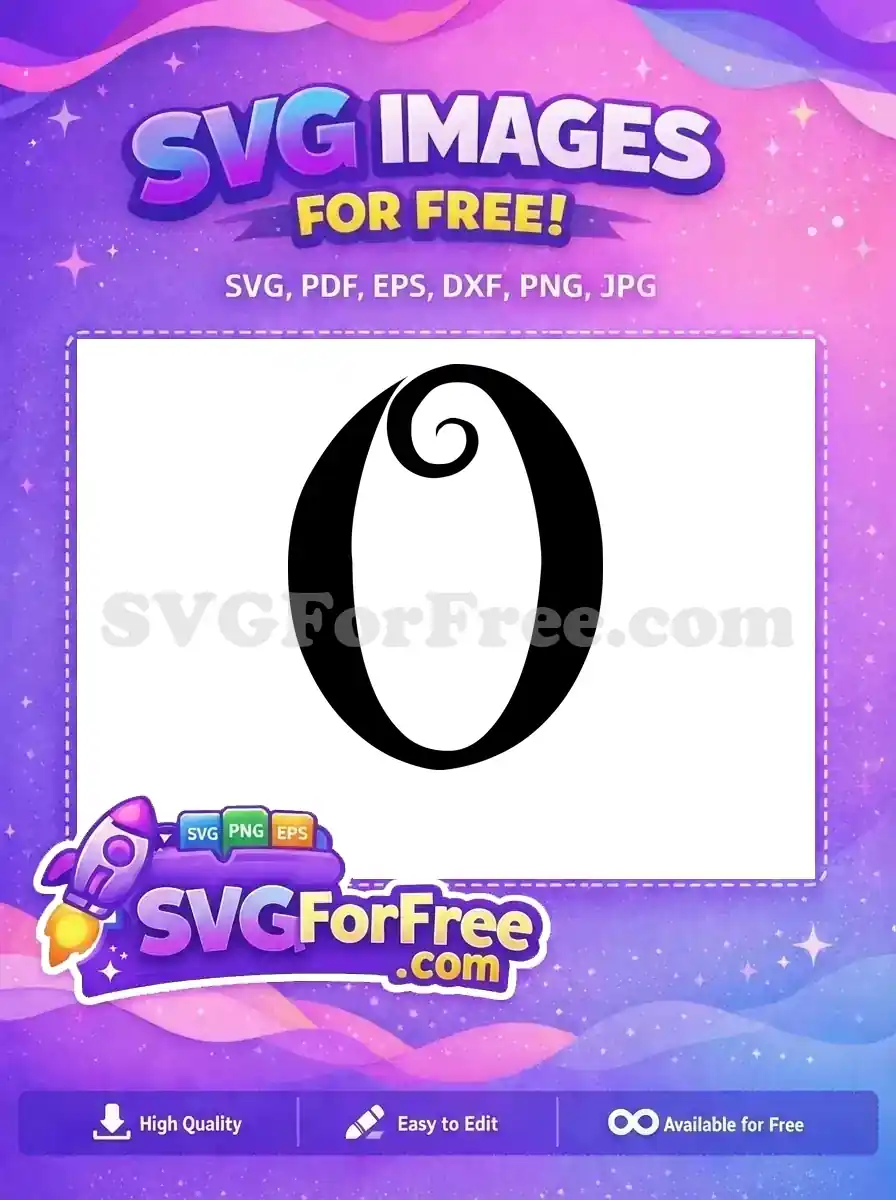
Free Swirl Font Free Black Letter O Fonts Free SVG – Instant Download
Variant lowercase o with a decorative curl at the top free design.
Free Swirl Font Free Black Letter O Fonts Free SVG